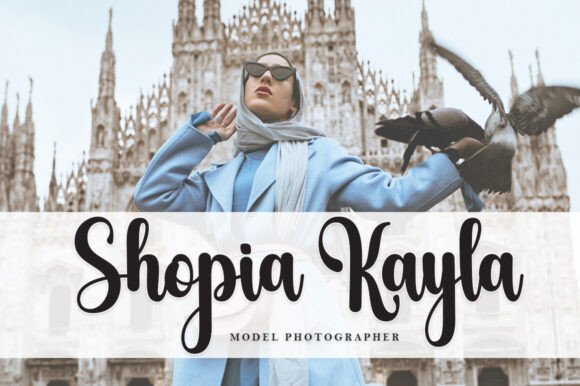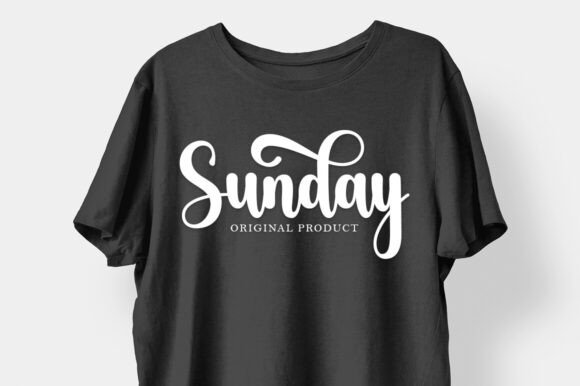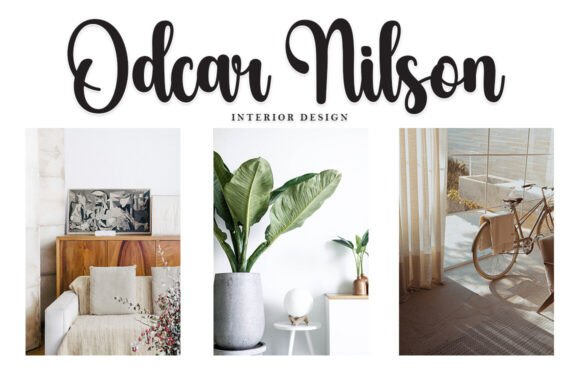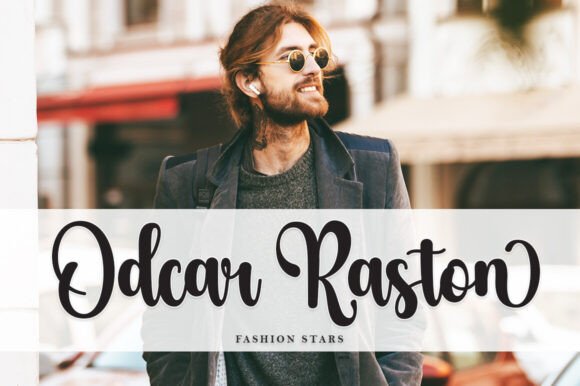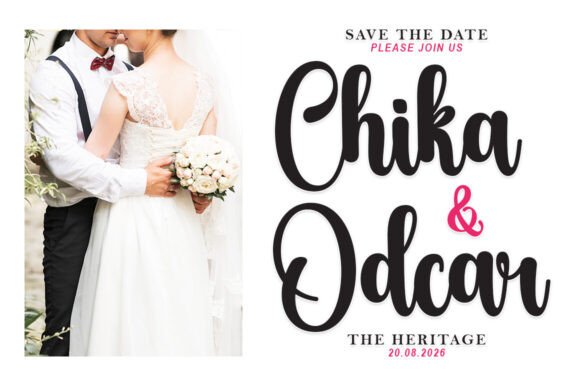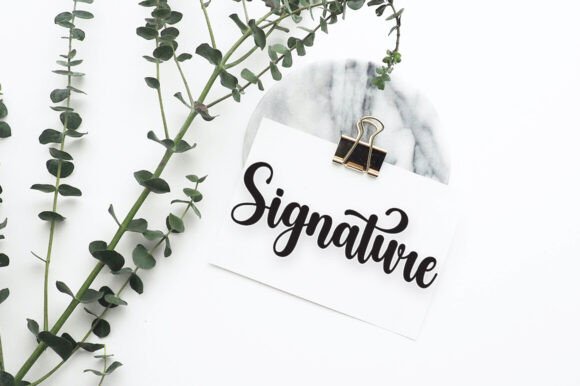
The Perfect Font for Your Next Design Project
Have you ever been stuck on a design project, staring at a blank page, wondering what’s missing? You’ve tried every font, every color scheme, and every layout, but nothing seems to click. That’s when inspiration strikes – you remember a childhood memory of playing with your favorite doll, and suddenly, the perfect font pops into your head. For many designers, that font is the Barbie Font, a stunning script font that adds a touch of elegance to any project.
| 👤 Author | Diorde Studio |
The Barbie Font is a stylish homage to classic calligraphy, perfect for elevating your branding, titles, wedding designs, invitations, and more. With its charming and feminine feel, it’s no wonder designers love using it to create beautiful and memorable designs. Whether you’re a seasoned pro or just starting out, the Barbie Font is a valuable addition to any design toolkit, offering a level of sophistication and style that’s hard to find with other fonts.
Barbie Font Key Features
- Font Family: The Barbie Font is a custom font designed for the Barbie brand, with a unique and playful style.
- Unique Characteristics: The font features a distinctive, cursive script with rounded edges and a flowing feel, evoking a sense of femininity and whimsy.
Barbie Font Review
The Barbie Font, inspired by the iconic fashion doll, is a unique and eye-catching typeface. It’s a great choice for designers looking to add a touch of whimsy and playfulness to their projects. ✨ One of the standout features of the font is its versatility – it can be used for a wide range of applications, from fashion and beauty to kids’ content and entertainment.
The font’s design is playful and feminine, making it a great fit for brands targeting a female audience. The letters are rounded and smooth, with a subtle nod to the classic elegance of the original Barbie doll. ✨ The font is also highly customizable, with a range of weights and styles available to suit different design needs.
- Playful and feminine design
- Wide range of applications
- May not be suitable for more serious or formal projects
- Can be difficult to read in smaller sizes
- May not be as effective in digital displays
Overall, the Barbie Font is a fun and creative addition to any designer’s toolkit. While it may not be suitable for every project, it’s a great choice for designers looking to add a touch of playfulness and whimsy to their work.
Tips for Getting the Most Out of the Barbie Font
1. Use the Barbie font for playful and whimsical designs.
2. Pair the font with bright and bold colors to create a fun and eye-catching look.
3. Experiment with different font sizes and styles to add visual interest to your design.
1. Children’s party invitations and decorations.
2. Fashion and beauty branding.
3. Whimsical and playful social media graphics.